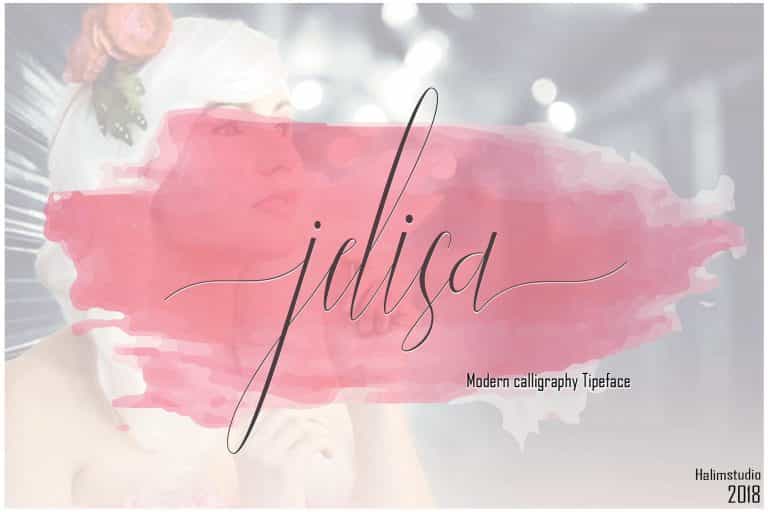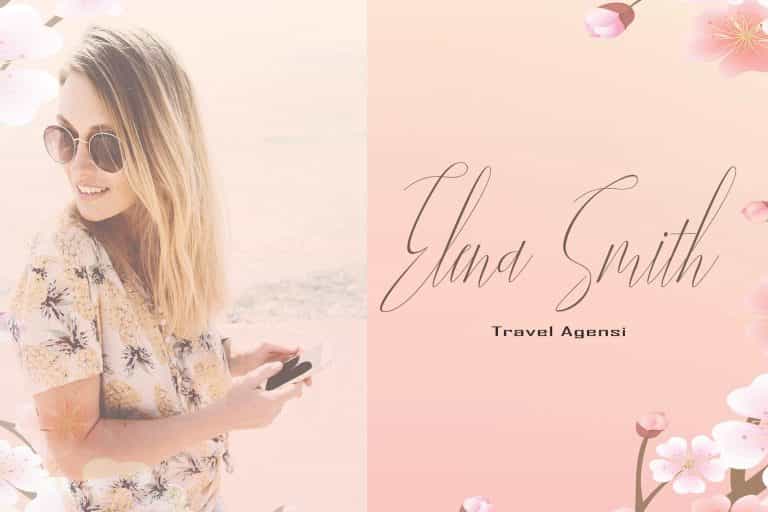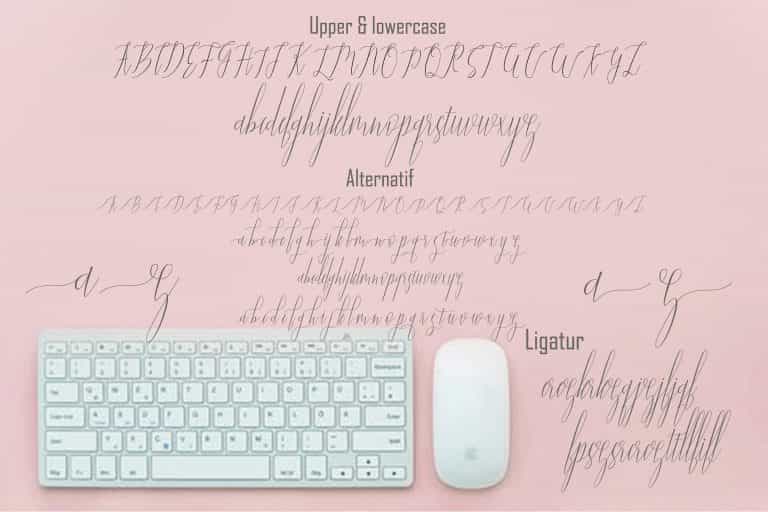
Introducing Jelisa Font. Jelisa is designed by halimstudio. Jelisa comes with classic style. This font is suitable for the design of vintage logos, fashion labels, special cards, headers, badges, food packaging designs, especially wine labels.